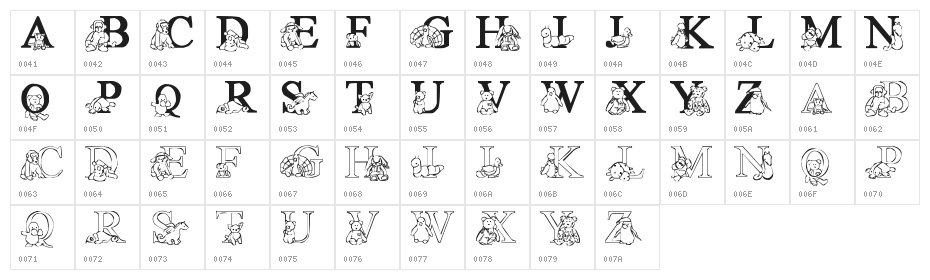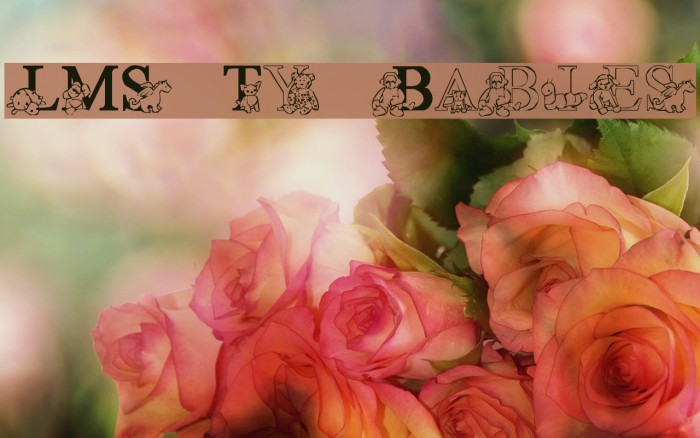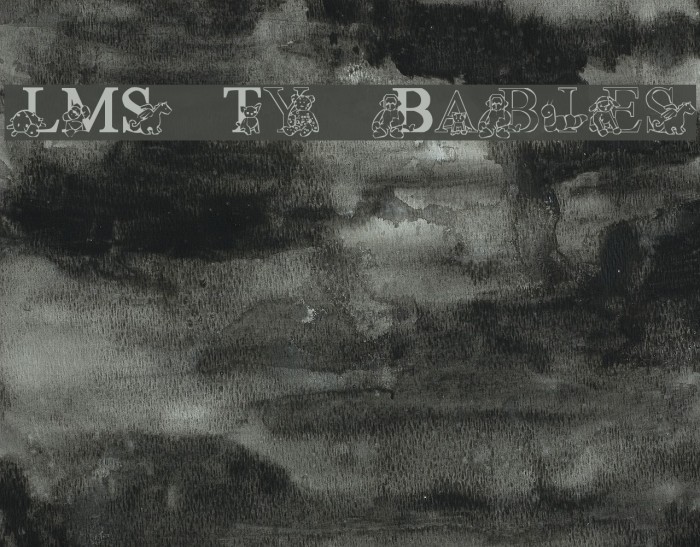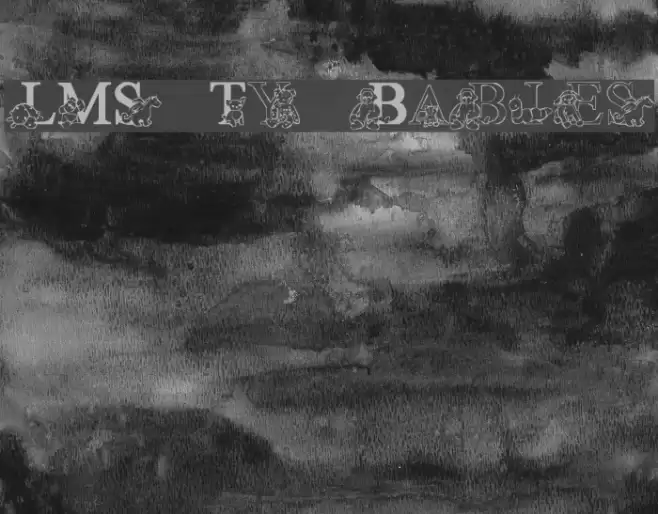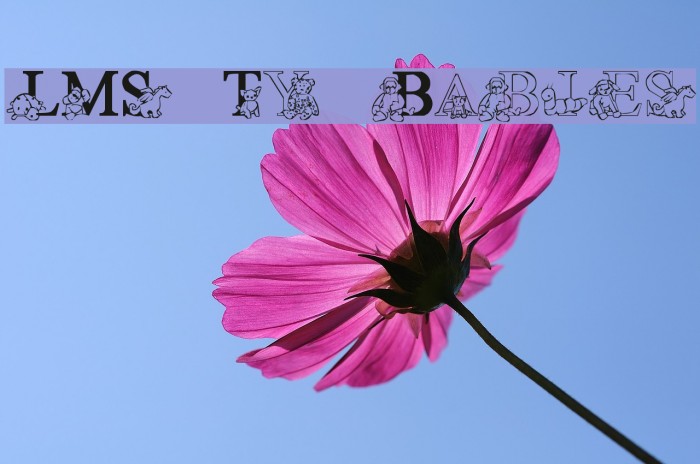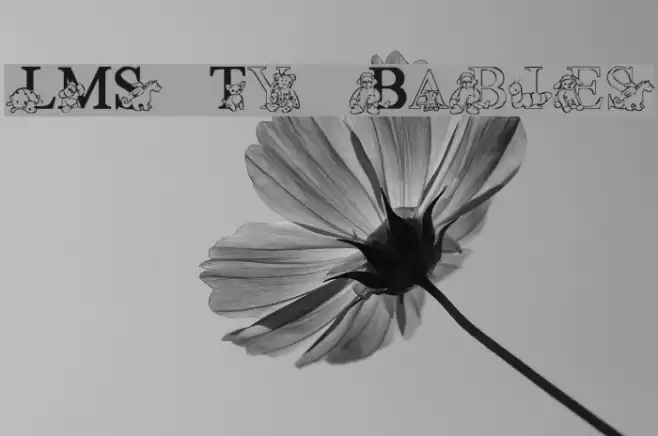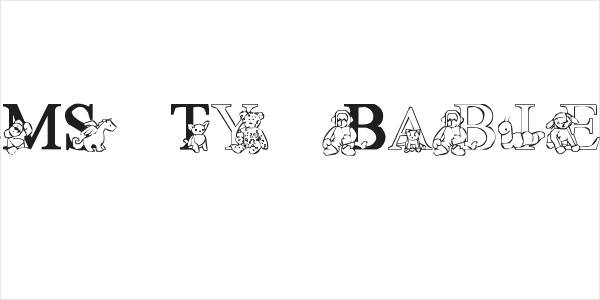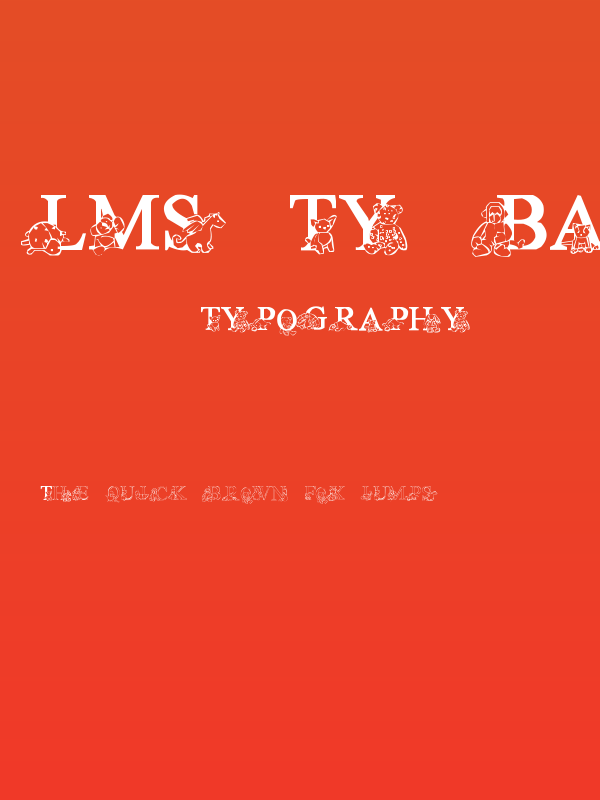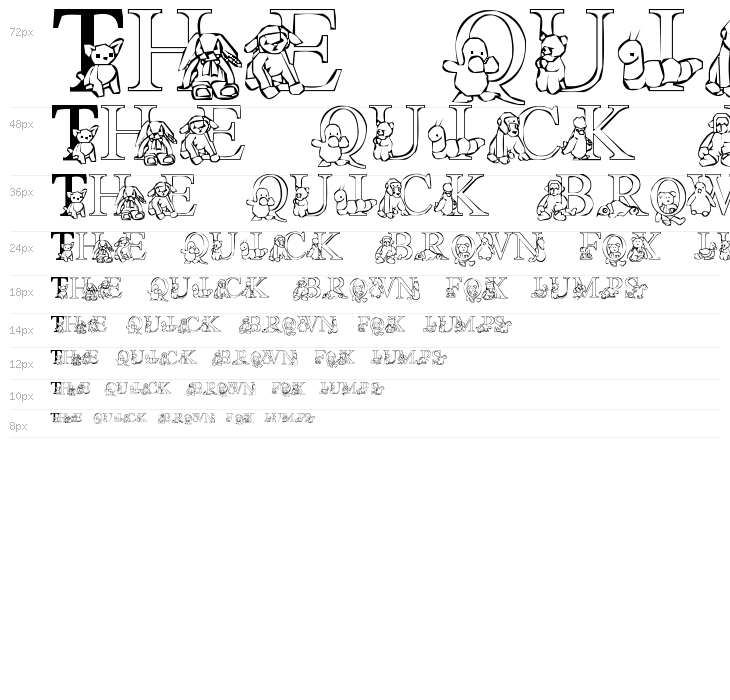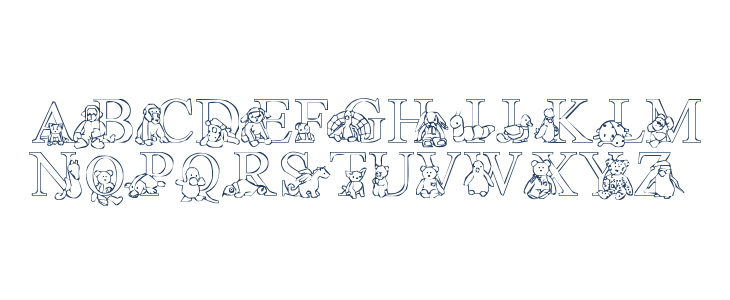
LMS Ty Babies Font
LMS Ty Babies Description
This playful and whimsical font features a delightful integration of adorable baby animal illustrations with each letter. The uppercase letters are bold and prominent, with each character accompanied by a charming depiction of a baby animal, adding a unique and endearing touch. The font is highly decorative, making it ideal for projects that require a fun and engaging visual element. The characters are well-defined, with a moderate contrast in stroke thickness, ensuring readability while maintaining its playful aesthetic.
| Use Case | Headlines, Decorative text |
| Proposed Projects | Ideal for children's books, playful invitations, nursery decor, and educational materials. |